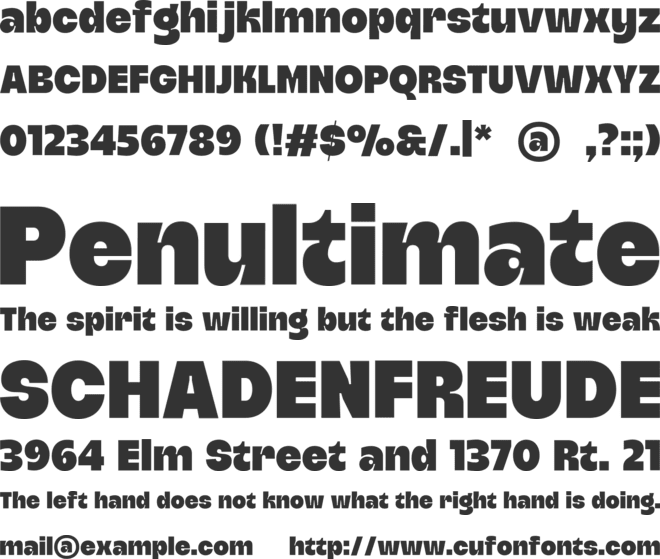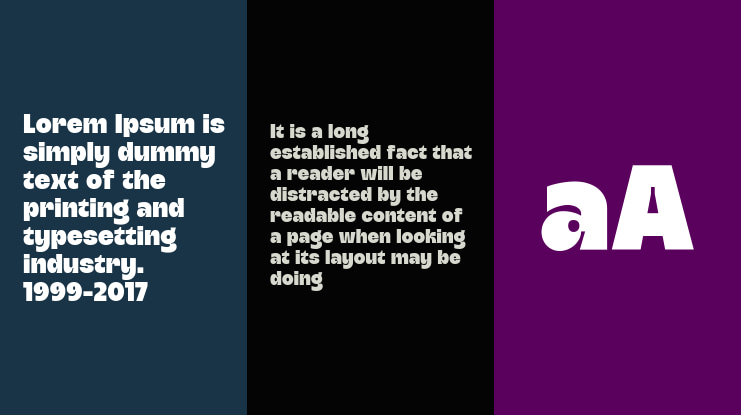
Publica – Bold Display Typeface
Make your designs impossible to ignore.
Publica is a modern bold display font designed to create strong visual impact while maintaining a clean contemporary appearance.
Available in 2 styles: Regular & Slanted, Publica is perfect for designers, creators, agencies, and brands that want to build memorable visuals with confidence.
Publica combines geometric shapes, thick letterforms, and modern aesthetics to help your projects look professional and eye-catching instantly.
Whether you're creating a fashion brand, a modern startup identity, or a powerful marketing campaign, Publica delivers bold personality with minimal effort.